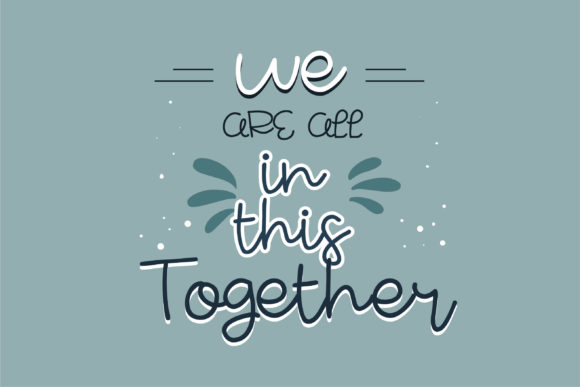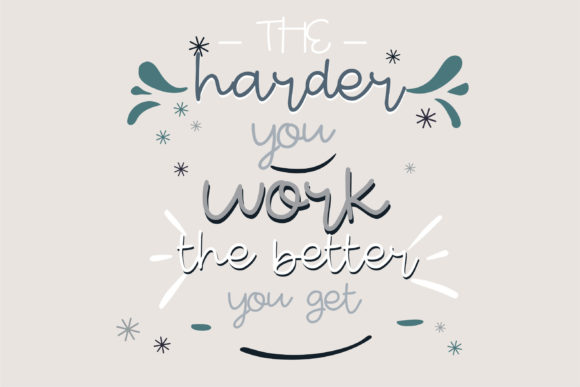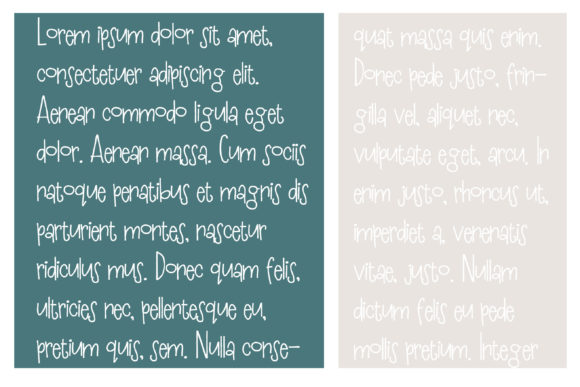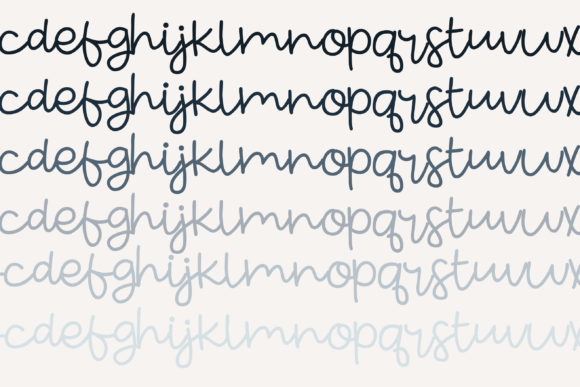
About Sour Grapes Font
“Sour Grapes” emerges as an enchanting handwritten font that captivates with its unique charm. This versatile script font holds the potential to be applied across a wide spectrum of design applications, from greeting cards to headlines. Its presence is sure to infuse a romantic and captivating essence into your upcoming projects.
The allure of “Sour Grapes” lies in its ability to evoke emotions and create an enchanting atmosphere. Its flowing strokes and intricate design elements contribute to an aesthetic that resonates with romance and visual appeal. This font seamlessly adapts to different contexts, ensuring its versatility shines through.
Whether you’re working on designs that require a touch of charm, aiming to infuse a sense of romance into your creations, or adding a captivating element to your projects, “Sour Grapes” becomes a valuable asset. Its delightful charm can evoke emotions and enhance the visual appeal of your work.
Incorporating “Sour Grapes” into your design projects means embracing its enchanting attributes. By harnessing its unique charm, you’re enhancing the visual allure of your work and ensuring that your designs resonate effectively with your intended audience. This font becomes a versatile instrument for infusing your creations with a touch of enchantment, ensuring they leave a lasting impression with a romantic undertone.